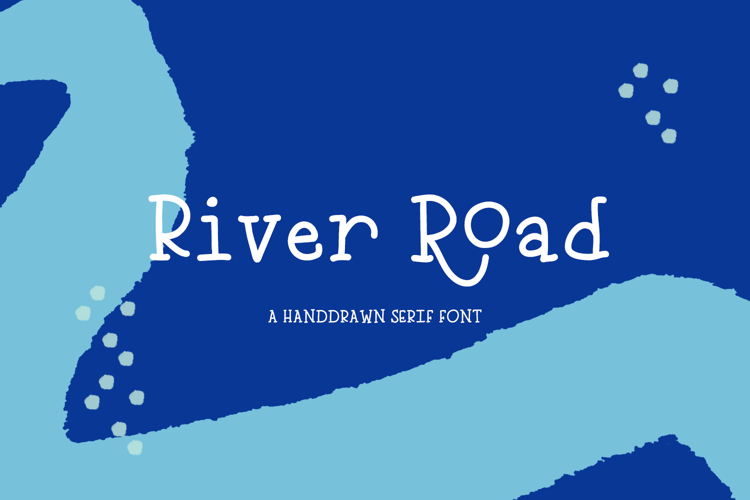
River Road Typewriter Serif
River Road is an excellent fit for:
- crafting - this font has a super smooth edge, making it an excellent fit for vinyl cutting machines like Silhouette or Cricut
- names or quotes on tumblers & mugs
- printable quotes
- shirts
River Road includes:
- all 26 uppercase character alternates as individual characters
- 84 ligatures